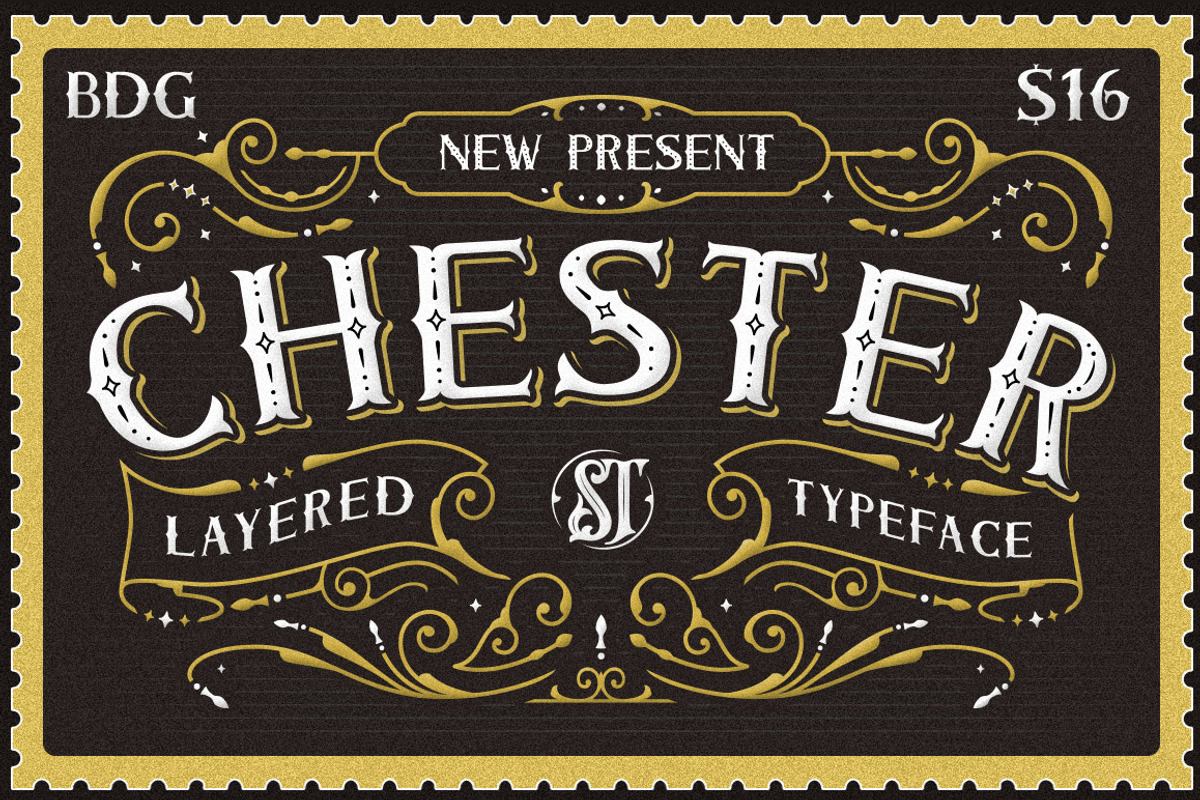
Chester | Display Layered Serif Font Free Download is a bold, vintage-inspired typeface designed with layered versatility in mind. With its sharp serifs, classic charm, and multiple layering options, Chester is ideal for logos, posters, signage, labels, and packaging that demand a strong, retro aesthetic. Whether you're aiming for a classic Americana vibe or a modern twist on old-school typography, Chester delivers bold impact with style.
The layered system allows you to mix shadows, outlines, and base styles for a fully customized look—making Chester | Display Layered Serif Font Free Download perfect for standout headlines and branding projects that need a touch of depth and personality.